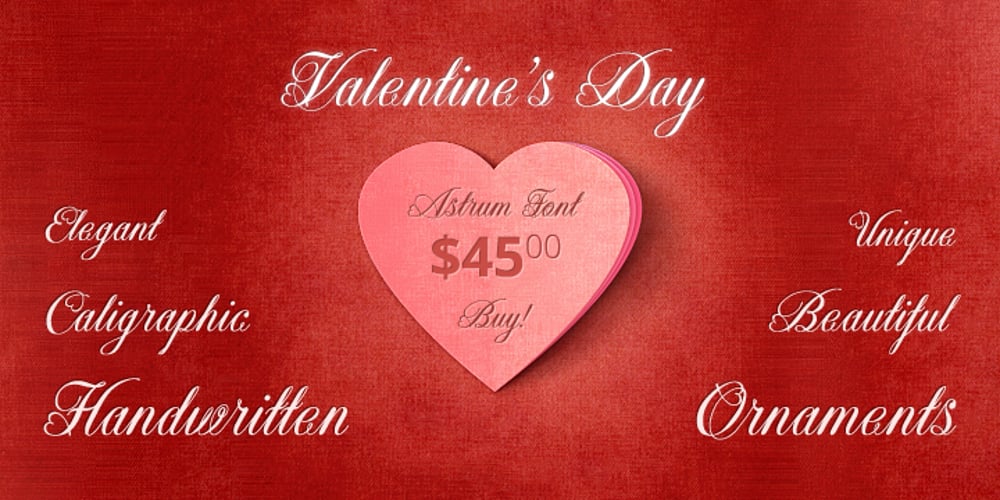
Astrum Heart Font Family was designed by Dusko Joksimovic and published by Fontex. Astrum Heart contains 2 styles and family package options. Astrum Heart is a very decorative script font using elegant caligraphic handwritten letters, that are all mutually interconnected, creating a unique look & feel of a personalized human handwritting. It’s clean and prefined lines makes Astrum Heart very appealing and modern, although it being very classical in it’s core essence. Capital letters are projected in a way to contain a stylized heart in it’s construction. Heart, as a symbol of love, makes this font unique for writting love letters, Valentine Day postcards, wedding invitations, etc. Idea for the creation of this font had originally came up from the need to create a beautiful design for Saint Valentine’s Day, but none of the existing fonts cut it – so I decided to create a new and unique typeface to fill this need. Letters and other characters are recognizeable by prefined ornaments, incorporated in a very subtle way. Whitespace between capital letters, lower-case letters, numbers and other characters are done in a way to minimize the need for kerning. Font Astrum Heart, besides being a celebration of class and exclusivity, is a very luxurious and elegant handwritten font. Words consisting of lower-case letters have the possibility of being decorated by adding a small heart at the beginning, anywhere between the letters, or at the end of the word. Character set for this font contains all western and central-european latin characters.